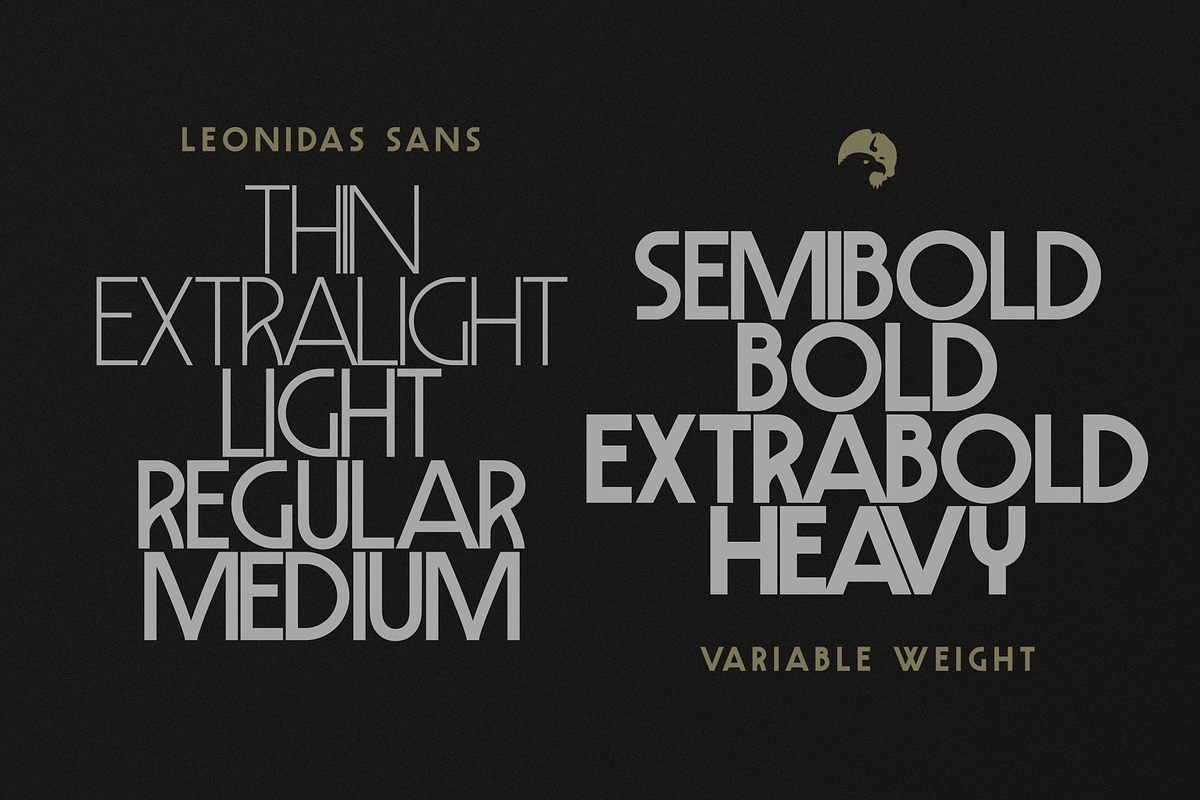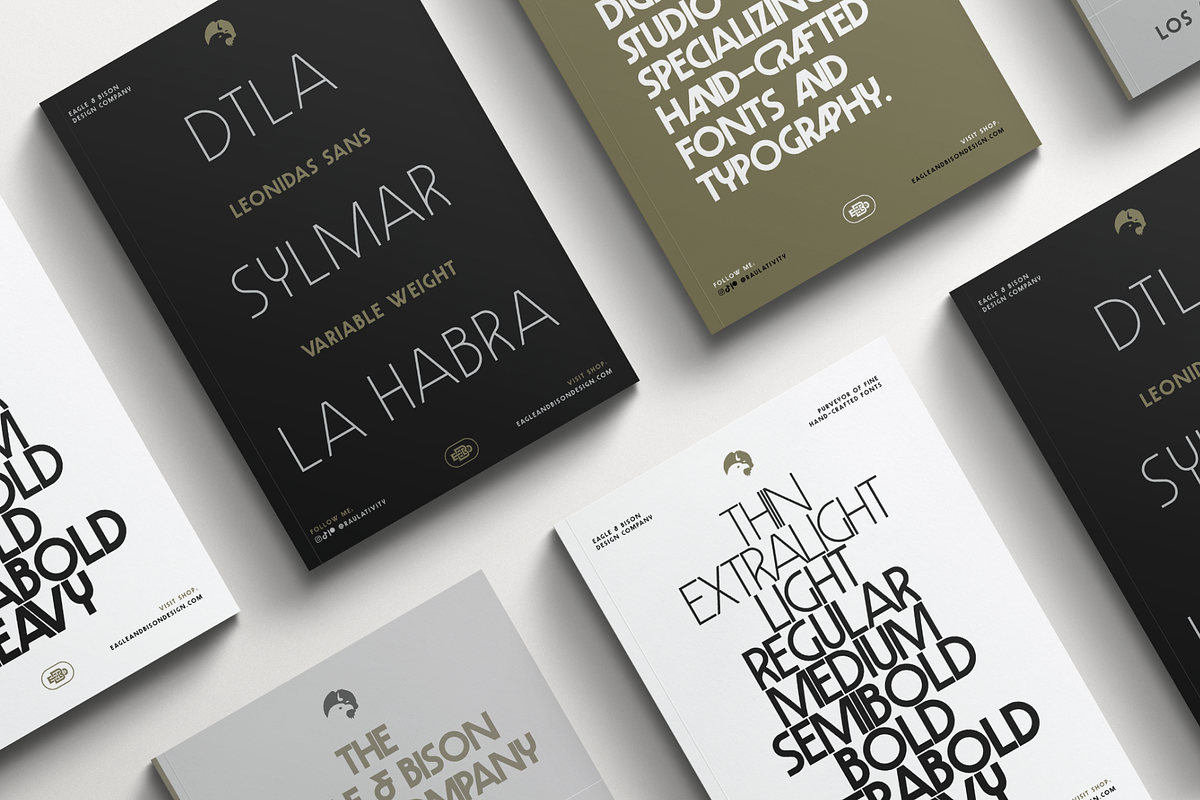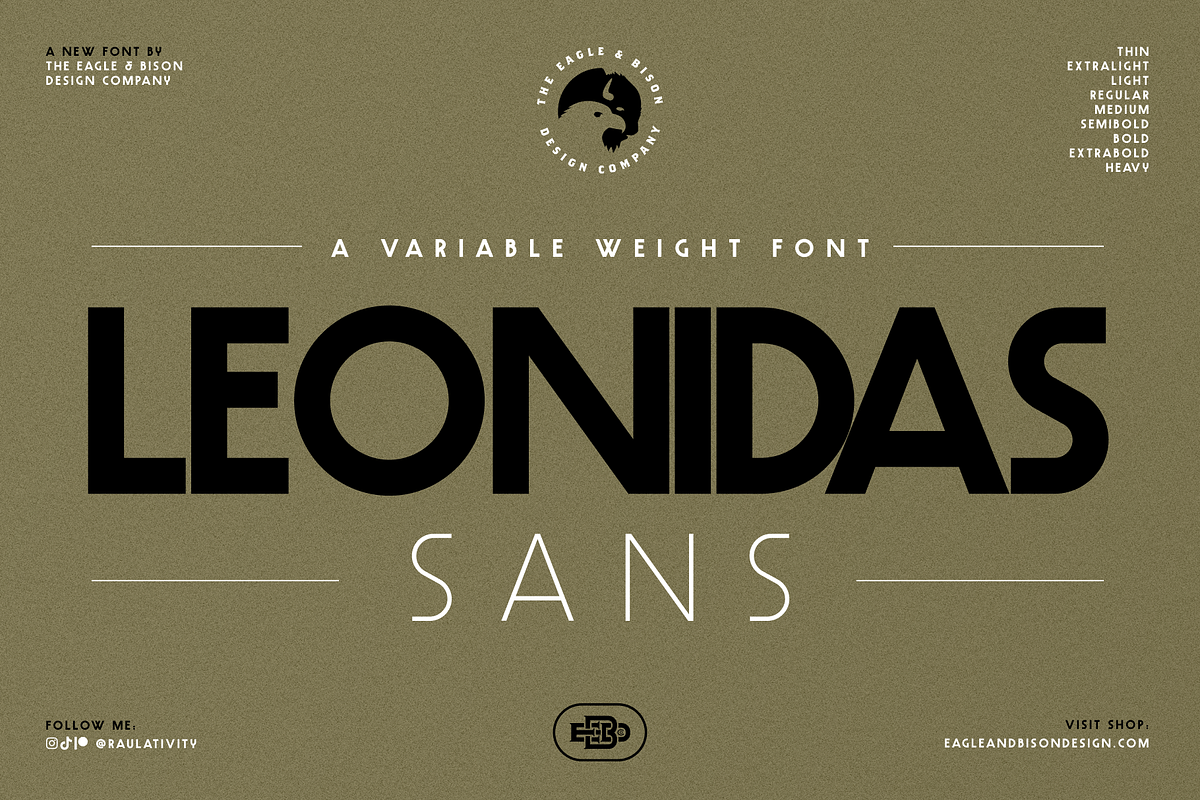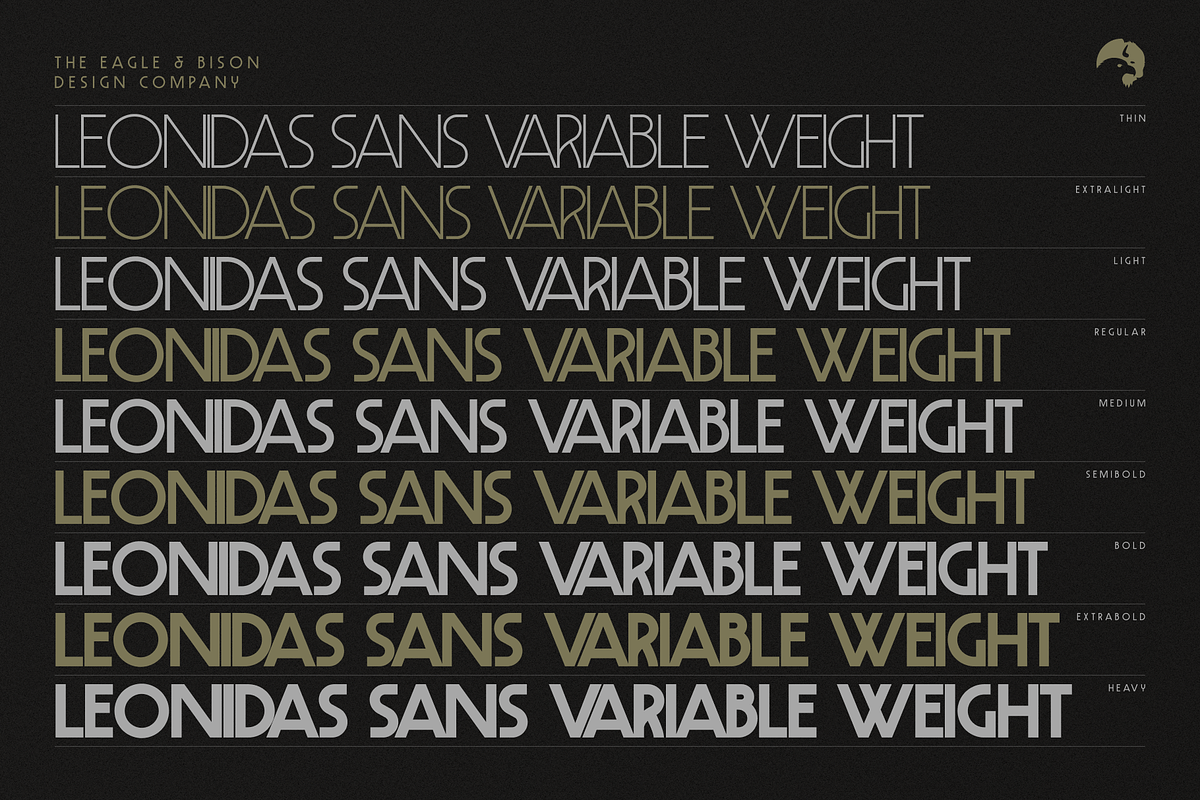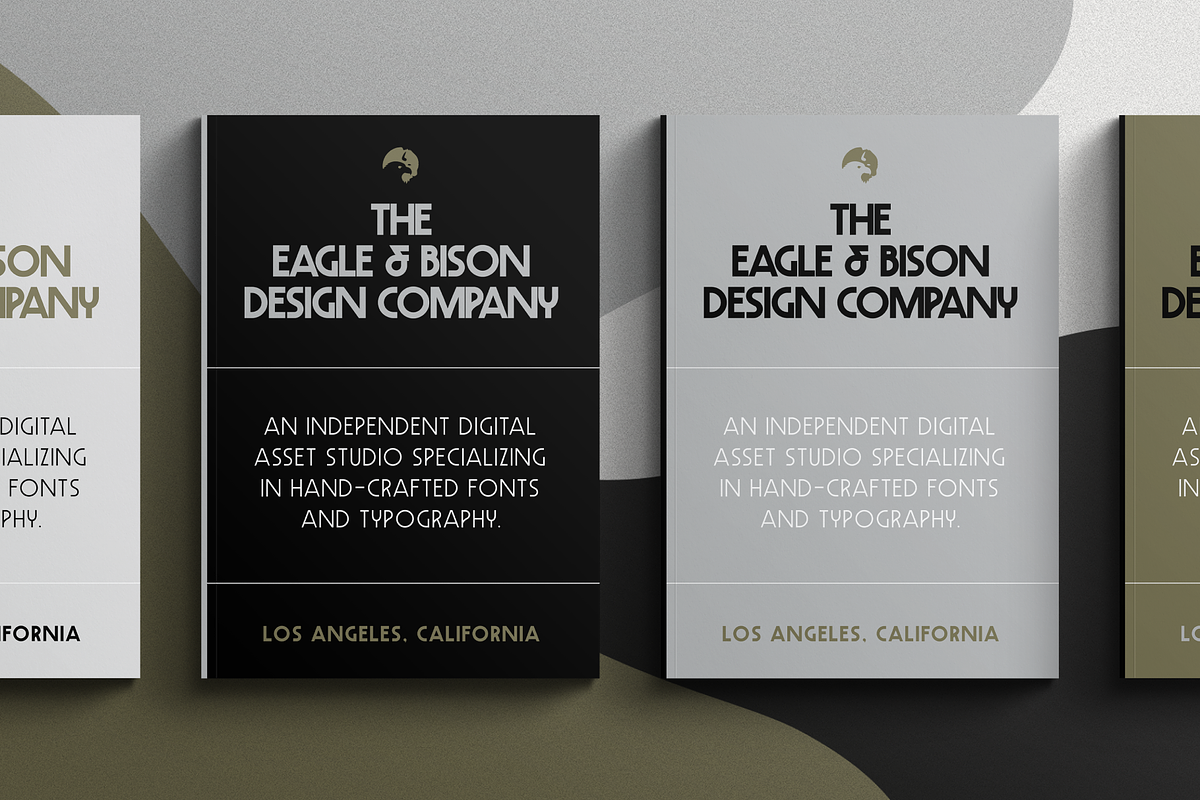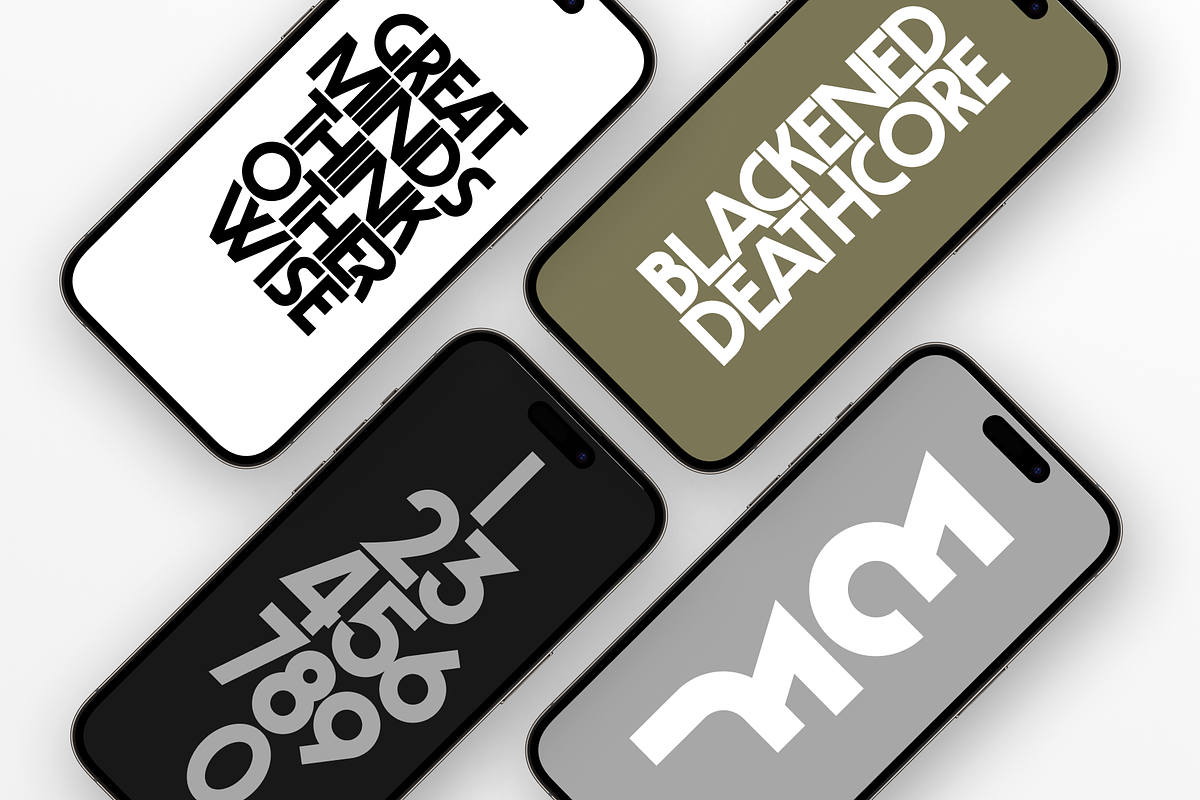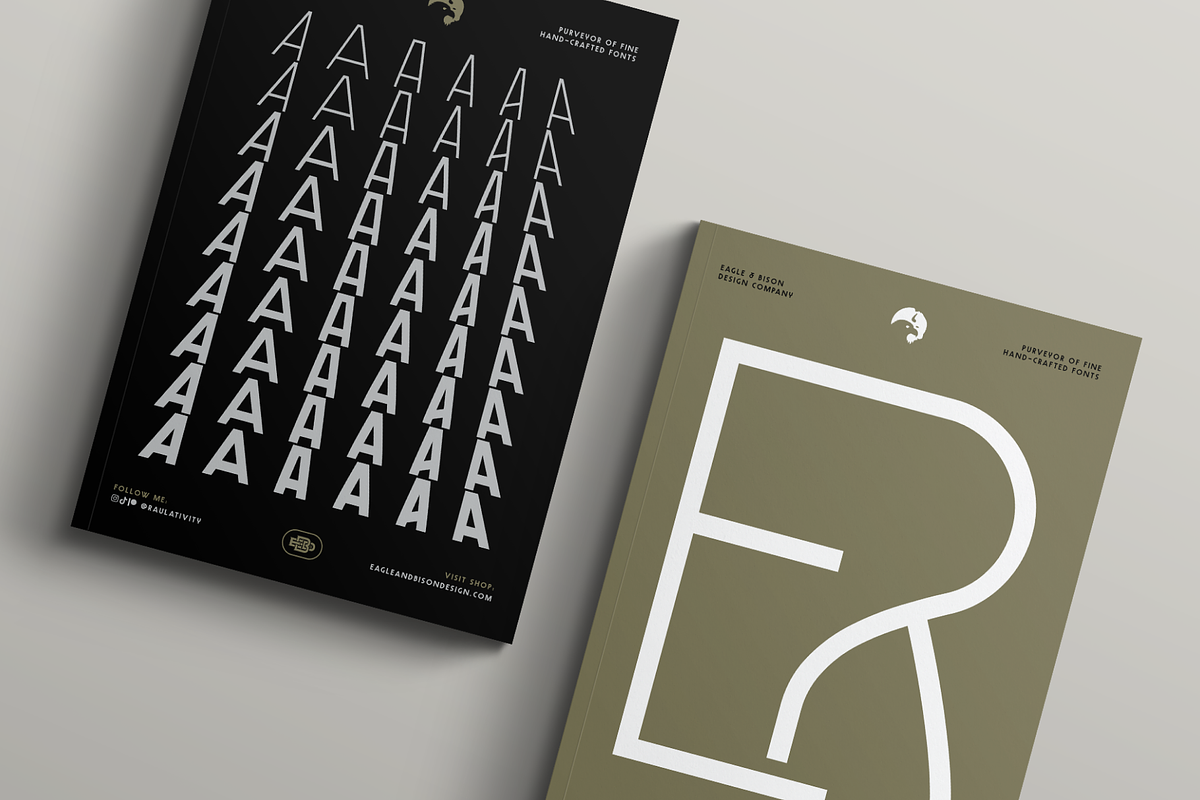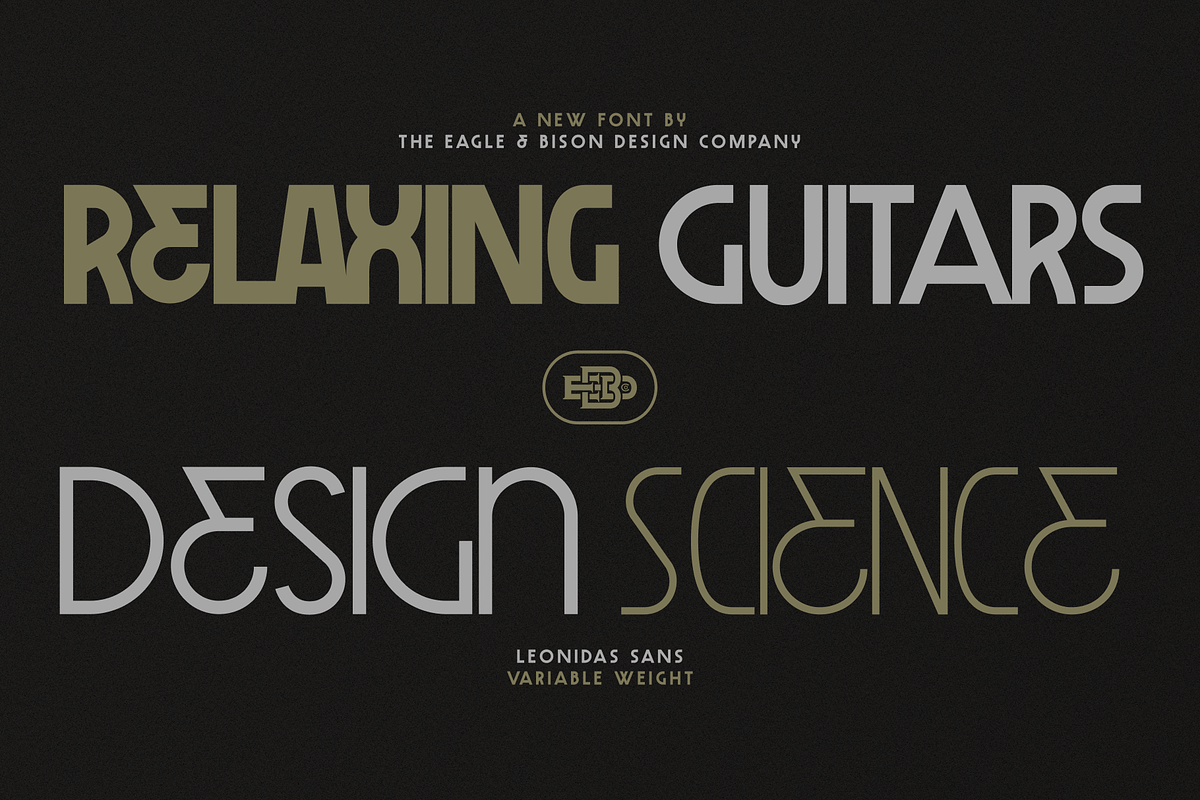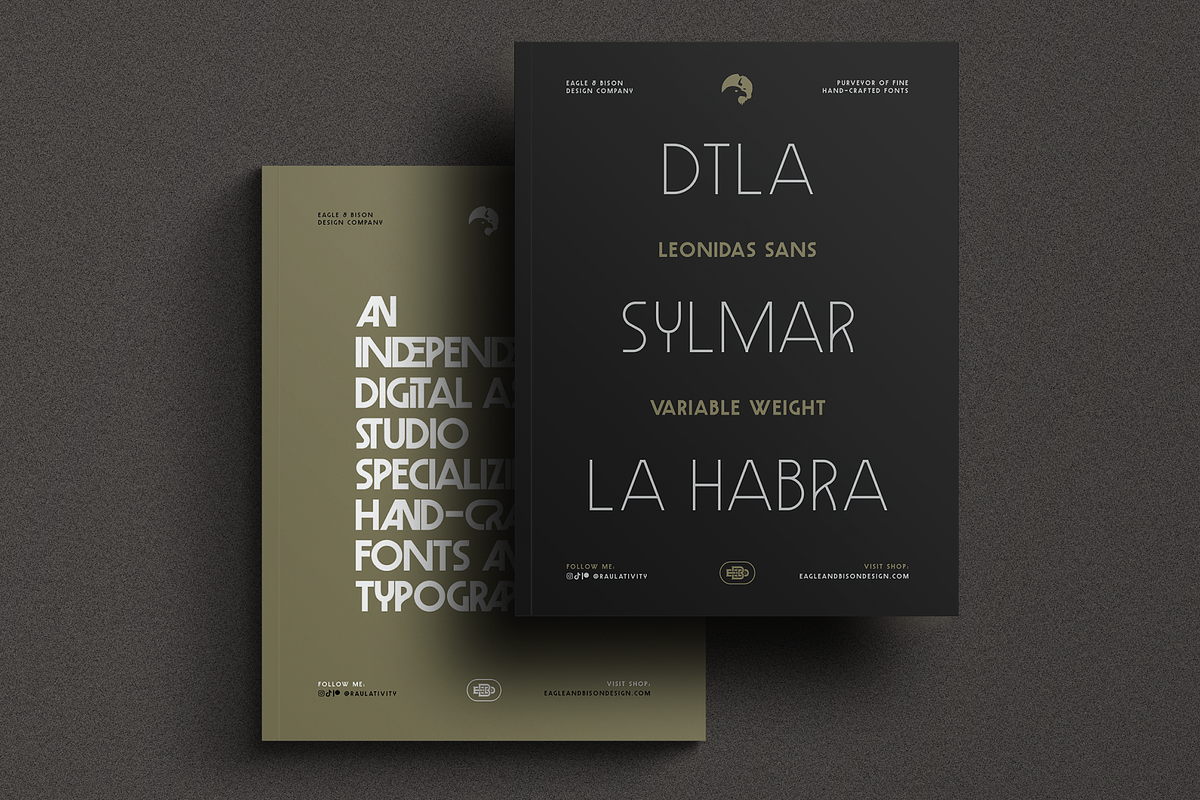
Leonidas Sans - Variable Weight Font
Introducing Leonidas Sans, a new sans serif expansion of the Leonidas font family from Eagle & Bison Design Co. Built with the same focus on versatility and control, Leonidas Sans is a variable weight typeface designed for bold branding, editorial layouts, posters, and modern display typography. This version includes 9 individual weights ranging from Thin to Heavy, along with a variable weight axis for smooth customization across styles and applications.
Leonidas Sans features a total of 177 carefully crafted characters, including:
Uppercase & Lowercase Letters
Numerals
Functional Punctuation
40 Alternate Characters
43 Discretionary Ligatures
A range of Special Characters for extended use
With its clean construction and expanded weight range, Leonidas Sans is built for projects that need flexibility, clarity, and strong visual presence.